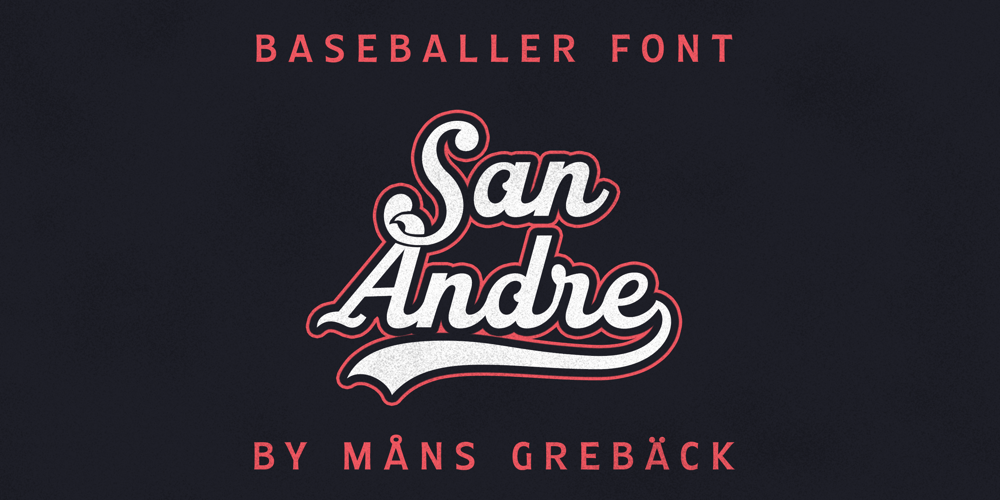
San Andre Font Family was designed by Måns Grebäck and published by Mans Greback. San Andre contains 1 styles and family package options. San Andre is a sport script font. Drawn and created by Mans Greback in 2021, this logotype lettering has a distinct retro style and a strong vintage personality, with a combination of soft brushes and strict backbones. Use multiple underscores to make swashes of different lengths. Examples: Andreas______ Athletics_______(Download required.)San Andre is built with advanced OpenType functionality and has a guaranteed top-notch quality, containing stylistic and contextual alternates, ligatures and more features; all to give you full control and customizability. The font has extensive lingual support, covering all Latin-based languages, from North Europa to South Africa, from America to South-East Asia. It contains all characters and symbols you’ll ever need, including all punctuation and numbers.